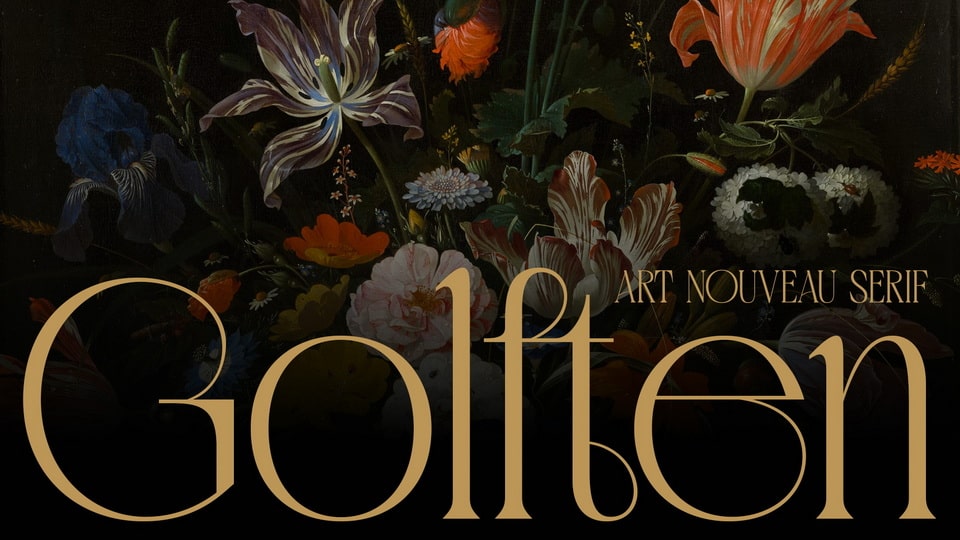
Download Golften font, Art Nouveau serif typeface stands as an epitome of elegance. It gracefully channels the beautiful and harmonious flow, drawing inspiration from the Art Nouveau style.